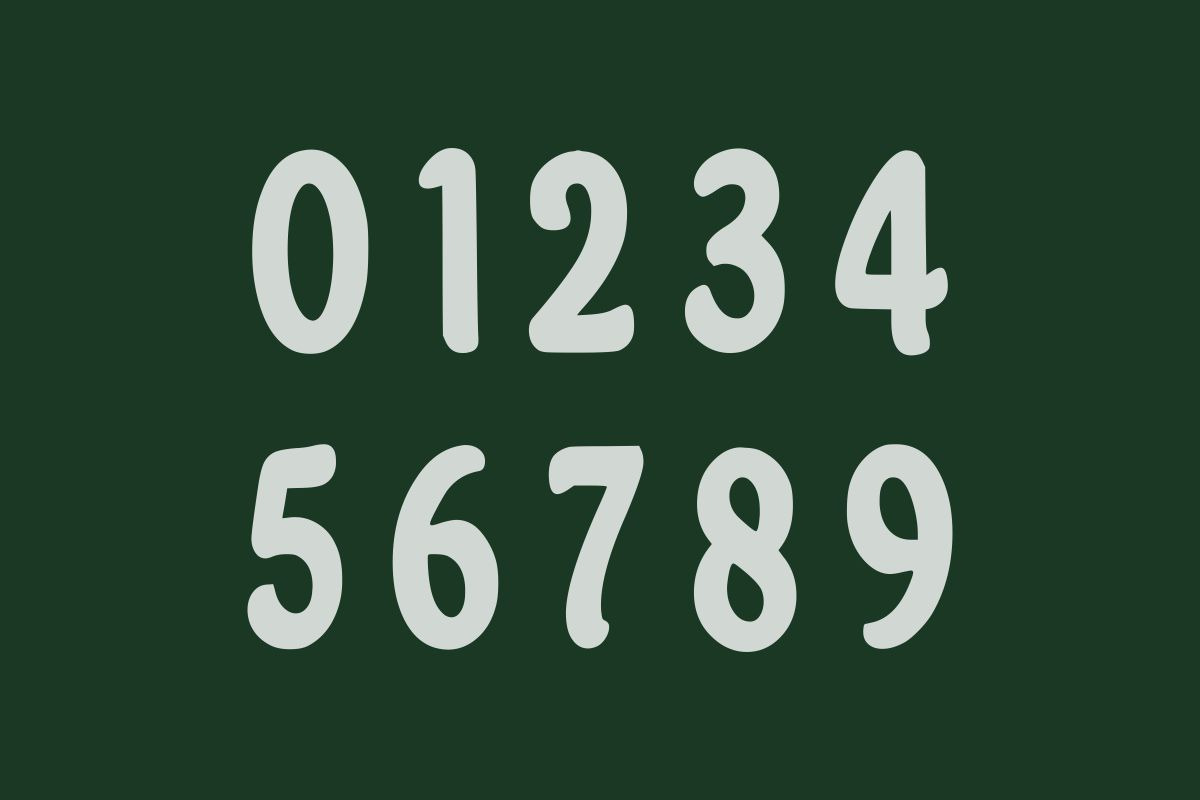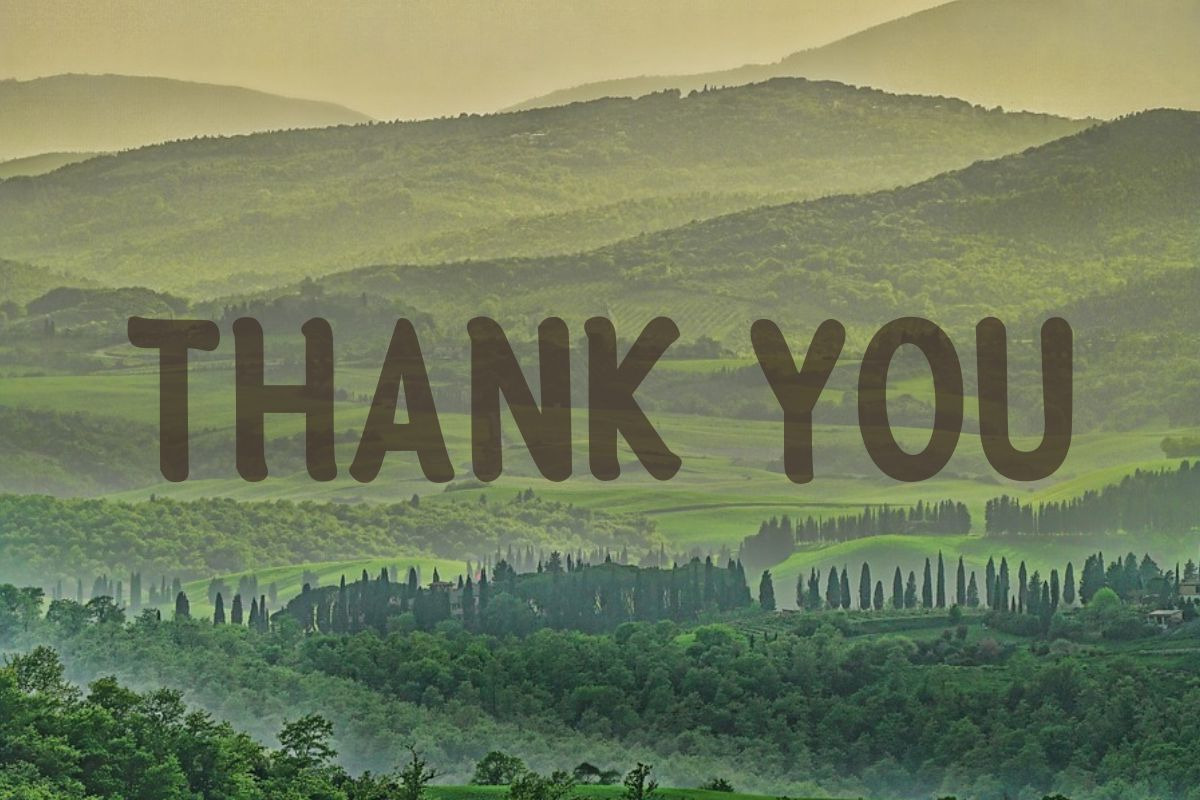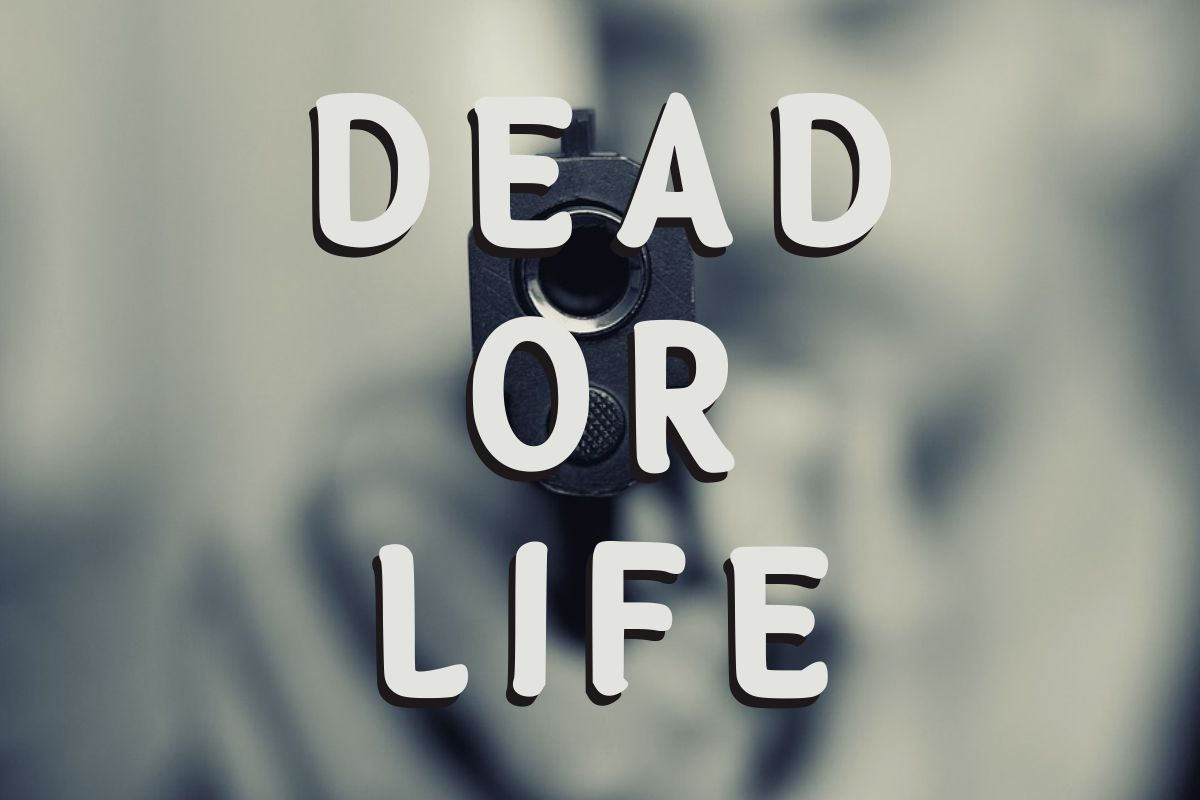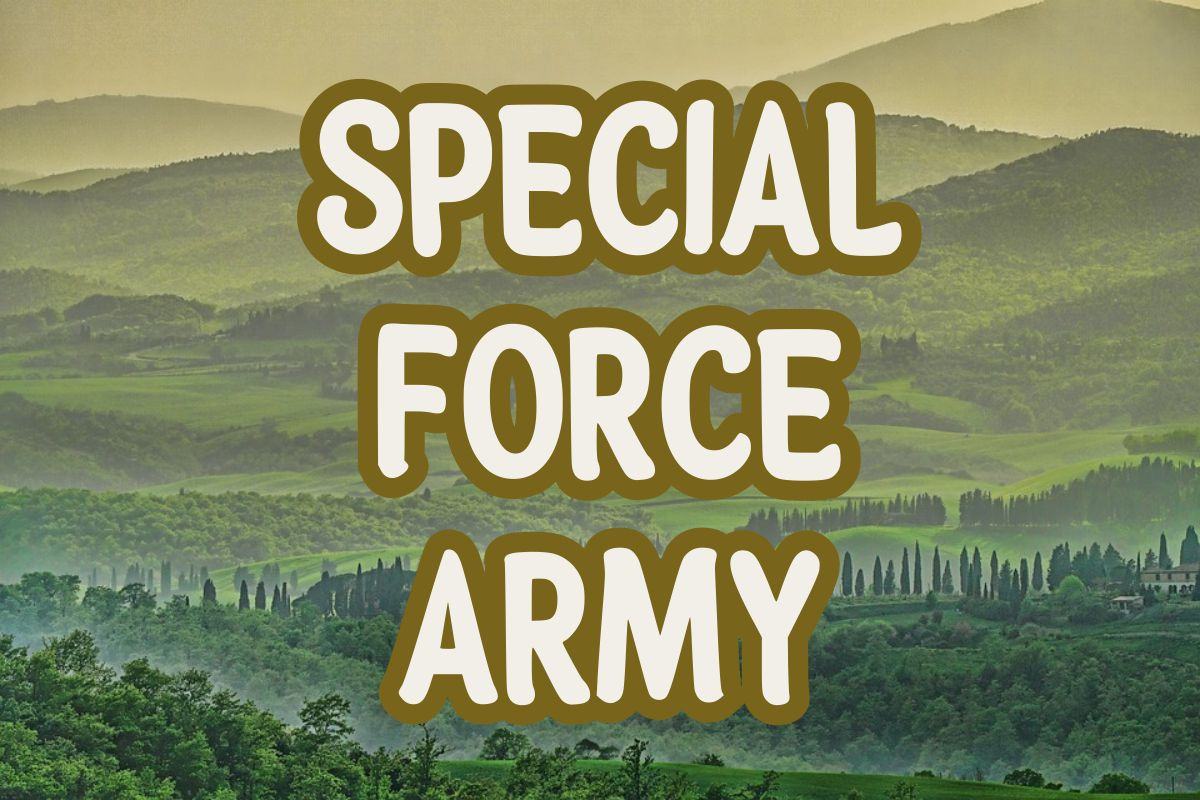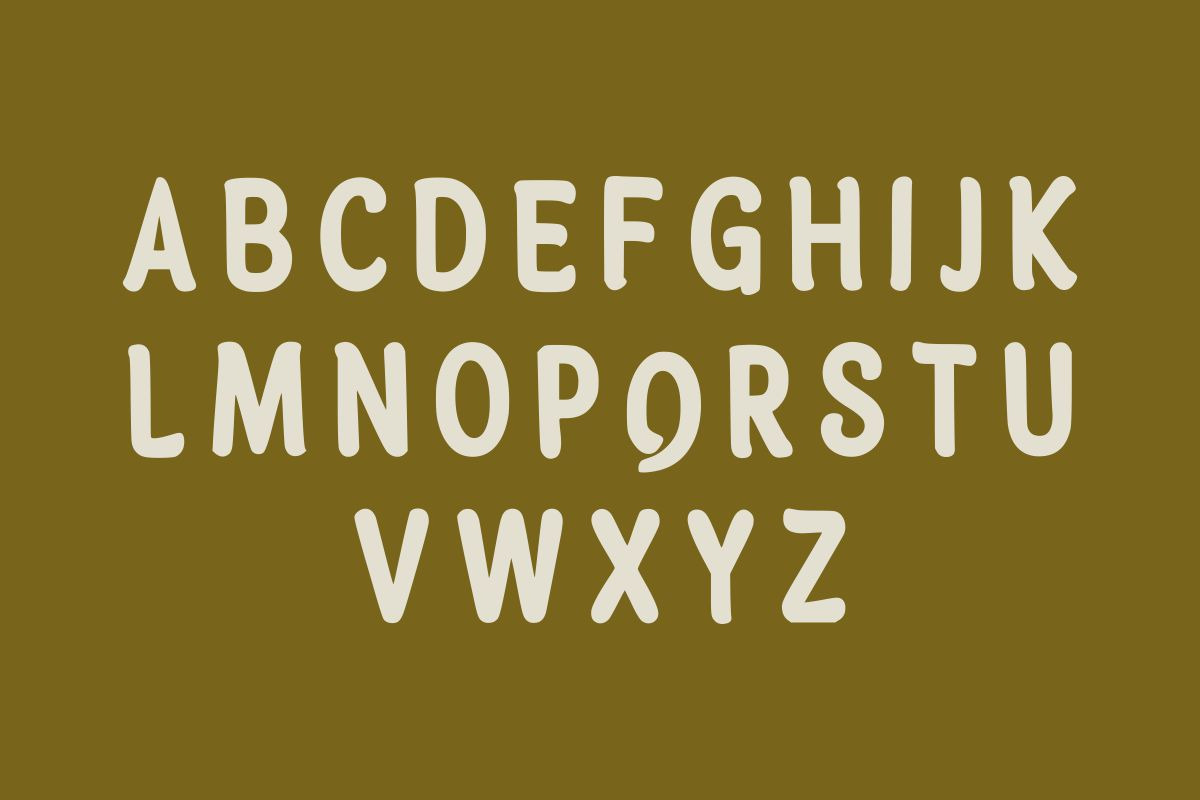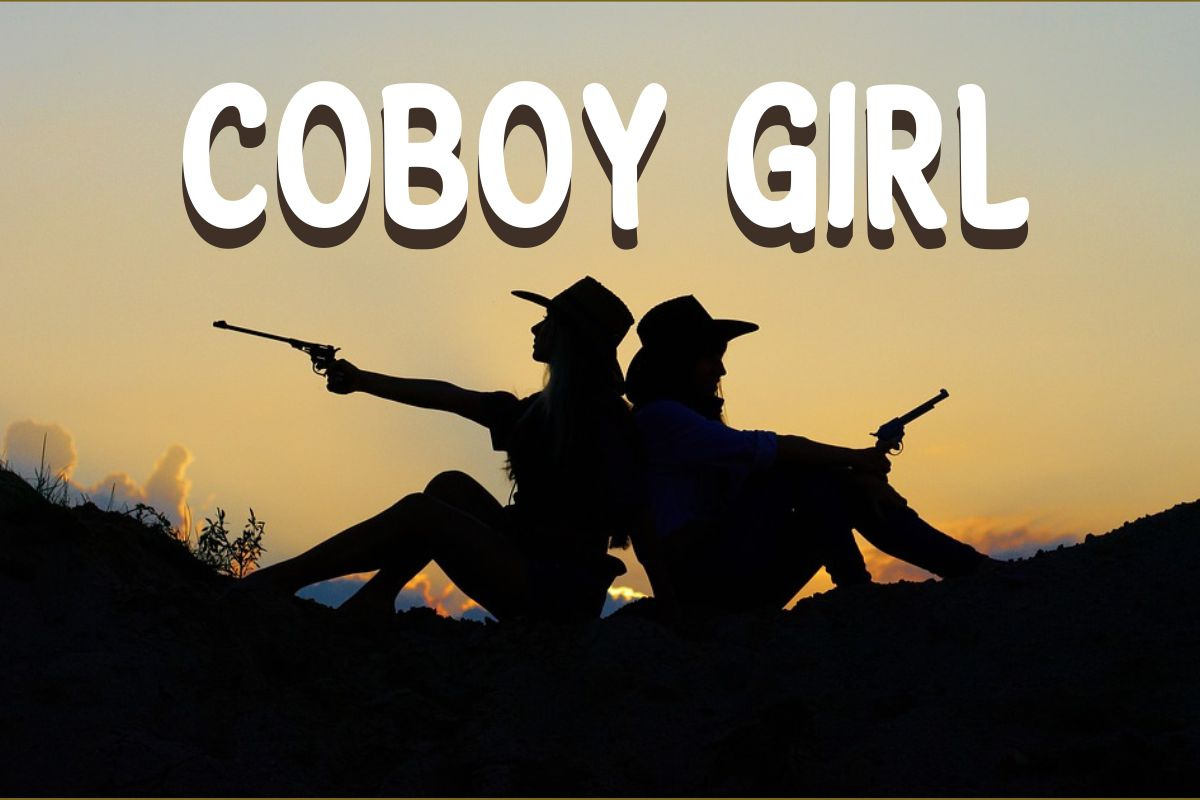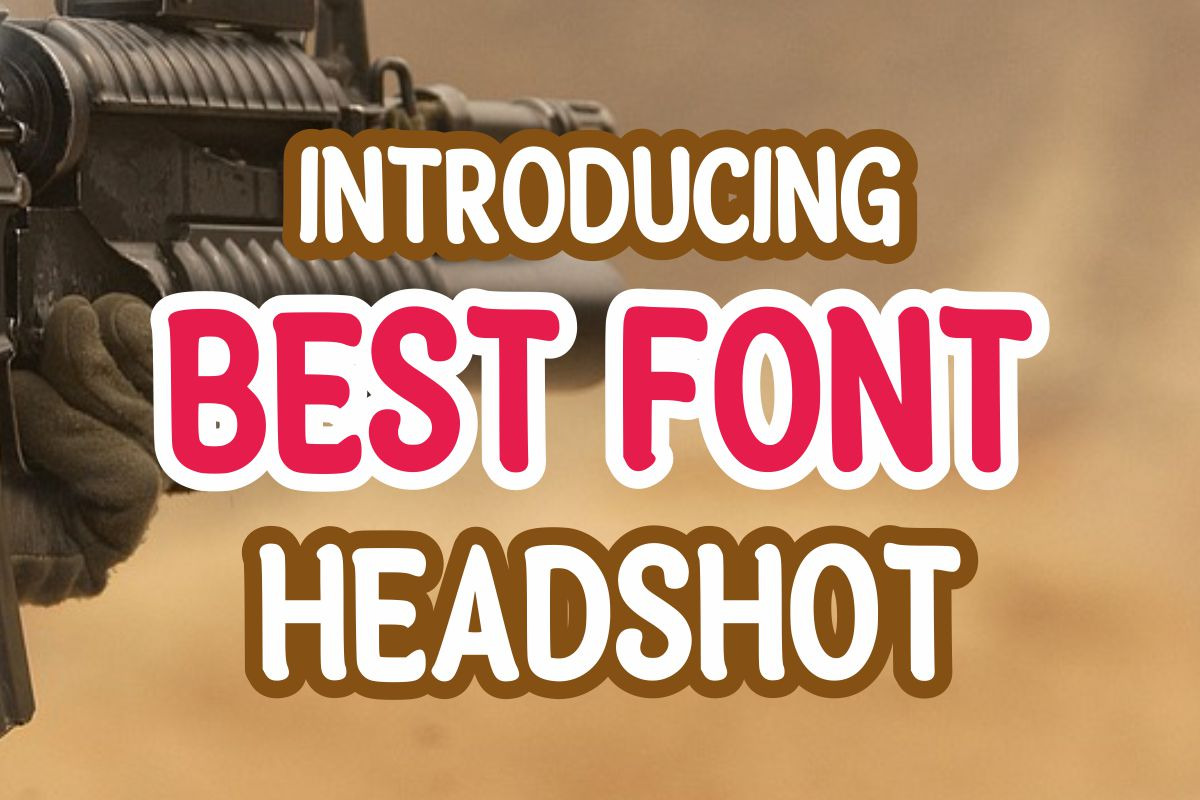
Headshot
Headshot is a cool, original, and easy-to-read display font. Whether you’re using it for crafts, social media, digital designs, presentations, or making greeting cards, this font has the potential to become your favorite go-to font, no matter the occasion!